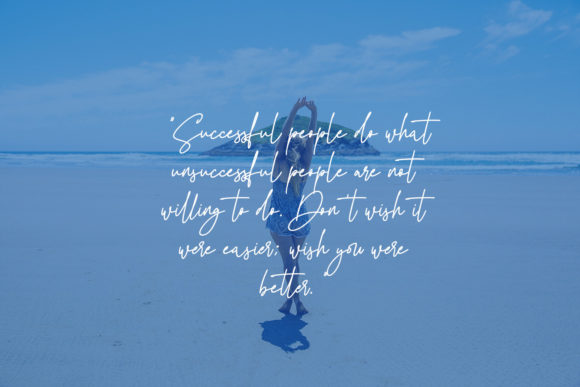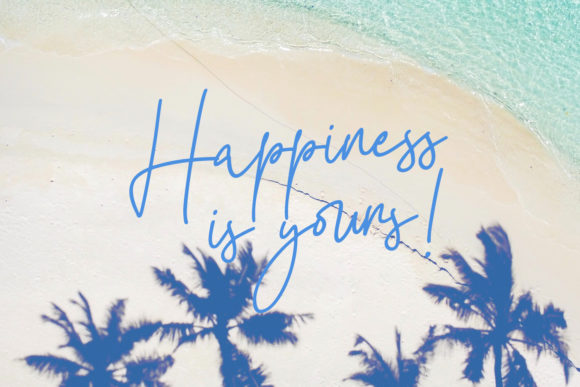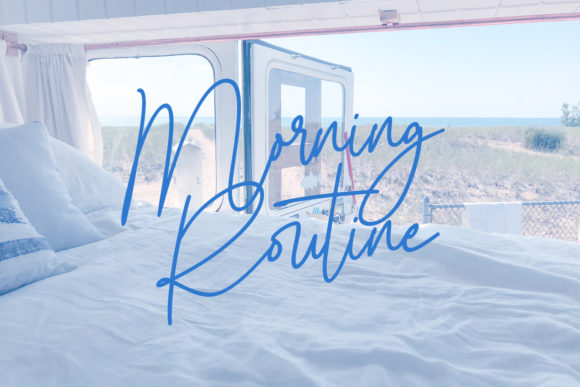
Introduction to Smilysundays Font
Smilysundays is a beautiful and fashionable script font.
It has a classy, elegant and modern look that can be used for logos, branding, invitations, stationery, wedding designs, social media posts, and much more .
Key Features of Smilysundays Font
Why Choose Smilysundays Font?
Smilysundays Font offers exceptional quality and versatility, making it a valuable addition to your design toolkit. Whether you’re creating for personal projects or commercial use, Smilysundays Font delivers professional results.